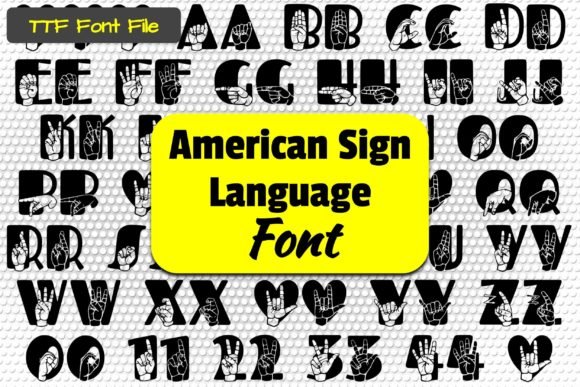
Discover the Secret to Captivating Visuals with the Able Lingo ASL 3 Font
As designers, we’ve all had that moment when a spark of creativity hits, and we know exactly what we want to create. Maybe it’s a bold new logo, a vibrant flyer, or a mouth-watering food menu that makes everyone’s eyes pop. Whatever it is, we know that the right font can make all the difference.
Enter the Able Lingo ASL 3 Font, a unique and eye-catching dingbats font that’s sure to elevate your designs to the next level. With its versatility and charm, this font is perfect for a wide range of projects, from posters and flyers to menus and print materials. Whether you’re a seasoned pro or just starting out, the Able Lingo ASL 3 Font is a valuable addition to your design toolkit.
- Unique Character Set: This font includes a comprehensive set of ASL (American Sign Language) characters, including fingerspelling, numbers, and common signs, making it an essential tool for ASL communication and education.
Able Lingo ASL 3 Font Review
I recently had the opportunity to work with the Able Lingo ASL 3 Font, and I must say it’s a solid choice for designers who need to incorporate American Sign Language (ASL) elements into their projects. ✨
- Clear and crisp typography, making it easy to read and understand.
- A wide range of characters, including fingerspelling, numbers, and common ASL symbols.
- Support for both uppercase and lowercase letters, making it versatile for different design applications.
- Able to easily customize font sizes, colors, and styles without compromising readability.
However, there are a few limitations that I’d like to mention: ⚠️
- Limited customization options for the ASL-specific characters, which may not be suitable for designers who require more flexibility.
- No support for right-to-left languages, which could be an issue for designers working on multilingual projects.
Overall, the Able Lingo ASL 3 Font is a reliable choice for designers who need to incorporate ASL elements into their work. While it may have some limitations, its clear typography and wide range of characters make it a solid option for many design applications.
The Able Lingo ASL 3 Font is commonly used for:
- Creating ASL (American Sign Language) resources and materials.
- Designing educational materials and presentations.
- Developing marketing materials and campaigns.